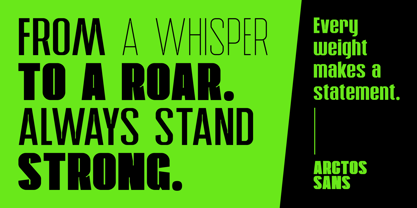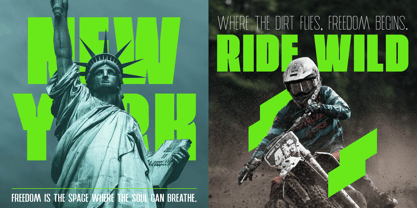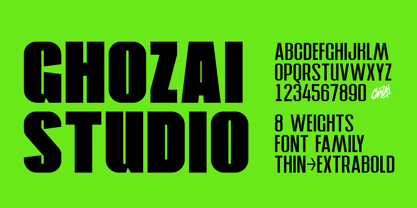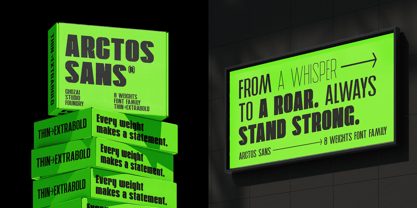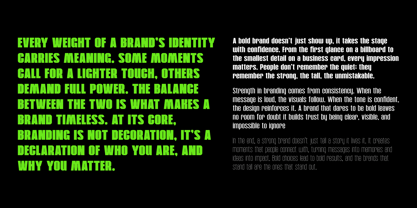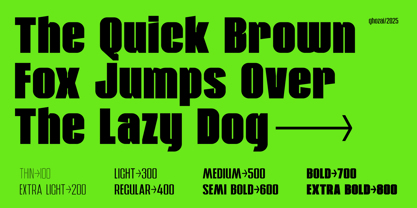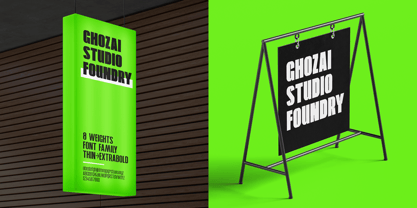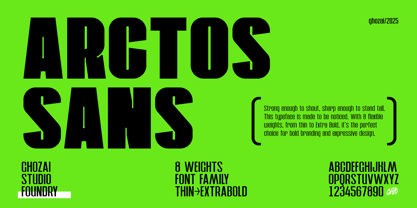
Arctos Sans
by Ghozai Studio
The Arctos Sans Font Family was designed by Manzur Ghozaali and published by Ghozai Studio. Arctos Sans contains 8 styles and family package options.
Arctos Sans is a bold and tall display font crafted to command attention. Built with strength and clarity in mind, its strong forms deliver instant impact whether used on posters, sports graphics, headlines, or digital media. With 8 versatile weights ranging from Thin to ExtraBold, Arctos Sans adapts seamlessly to different moods, subtle and sleek in lighter styles, powerful and dominant in heavier ones. This versatility makes it an ideal choice for branding, signage, editorial layouts, and any design that demands presence. Confident, modern, and unapologetically strong, Arctos Sans was made to stand tall wherever words need to leave a lasting mark.